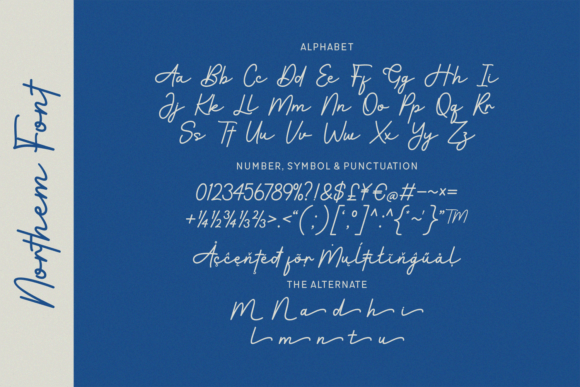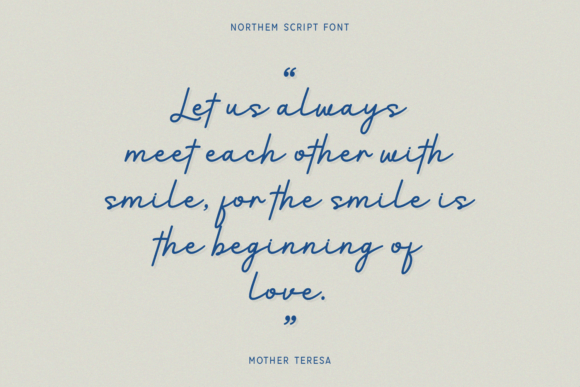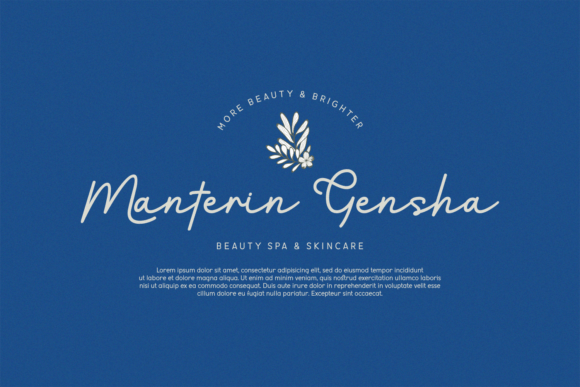
Introduction to Northem Font
Have you ever been stuck trying to find the perfect font for a creative project, only to end up scrolling through endless options that just don’t quite fit the vibe you’re going for? We’ve all been there. But what if you stumbled upon a font that effortlessly combines modern style with classic elegance, making it the perfect addition to your design resource arsenal? Enter the Northem Font, a high-quality monoline script font that’s sure to elevate your creative projects to the next level.
Whether you’re a seasoned designer or just starting out, the Northem Font is a valuable tool that’s worth having in your toolkit. Its smooth, flowing lines make it perfect for creating a personal touch in invitations, greeting cards, and logos, while its transparent background allows for seamless integration into any design. And the best part? You can download it for free, making it an accessible design resource for creatives of all levels.
With its versatility and high-quality design, the Northem Font is an essential addition to any designer’s library. Whether you’re working on a small project or a large-scale design, this font is sure to bring a touch of sophistication and elegance to your work.
Key Features of Northem Font
- High-quality, elegant script font suitable for creative projects.
- Transparent background, ideal for overlaying on images or using with transparent backgrounds.
- Available in multiple font sizes, with a recommended size range of 12-24 points.
- Resolution-independent design, ensuring crisp and clear rendering at various resolutions.
- Designed to be versatile, suitable for a variety of design applications, including invitations, logos, and typography-based art.
- Comes with a comprehensive character set, including uppercase and lowercase letters, numbers, and punctuation marks.
Honest Review: Northem Font
- High quality design: The Northem Font is incredibly detailed and well-crafted, making it a great addition to any creative project.
- Transparent background: The font’s transparent background makes it easy to use with images or other design elements.
- Design versatility: The Northem Font is highly versatile and can be used for a wide range of design projects, from logos to brochures.
- Limited font styles: While the Northem Font is a high-quality design, it only comes in a limited number of font styles.
- No bold or italic options: Some users may find it frustrating that there are no bold or italic options available for the Northem Font.
Overall, I’m impressed with the Northem Font’s design quality and versatility. However, I do wish it came with more font styles and bold/italic options. If you’re looking for a free design resource, the Northem Font is definitely worth checking out.
Tips for Getting the Most Out of Northem Font
Experiment with different font sizes, colors, and combinations to achieve the desired look. Use the Northem Font in conjunction with other design elements to create a cohesive and visually appealing design. Consider using the font in a variety of creative projects, such as brochures, posters, and social media graphics.
The Northem Font is commonly used in creative projects, such as:
- Posters and signs